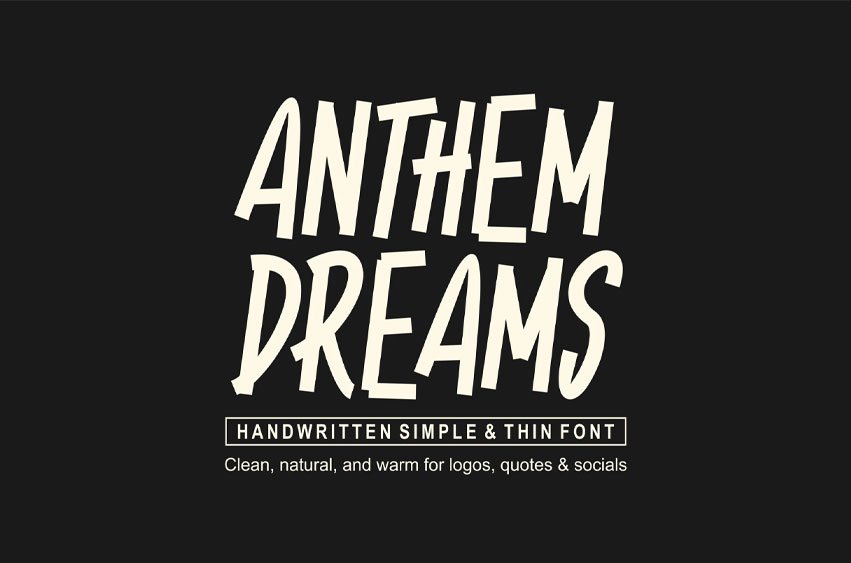
Anthem Dreams Font Handwritten Simple And Thin Font is a bold and authentic display font. The font is suitable for any branding project like logo, esport, and many more.
outstanding in a wide range of contexts.